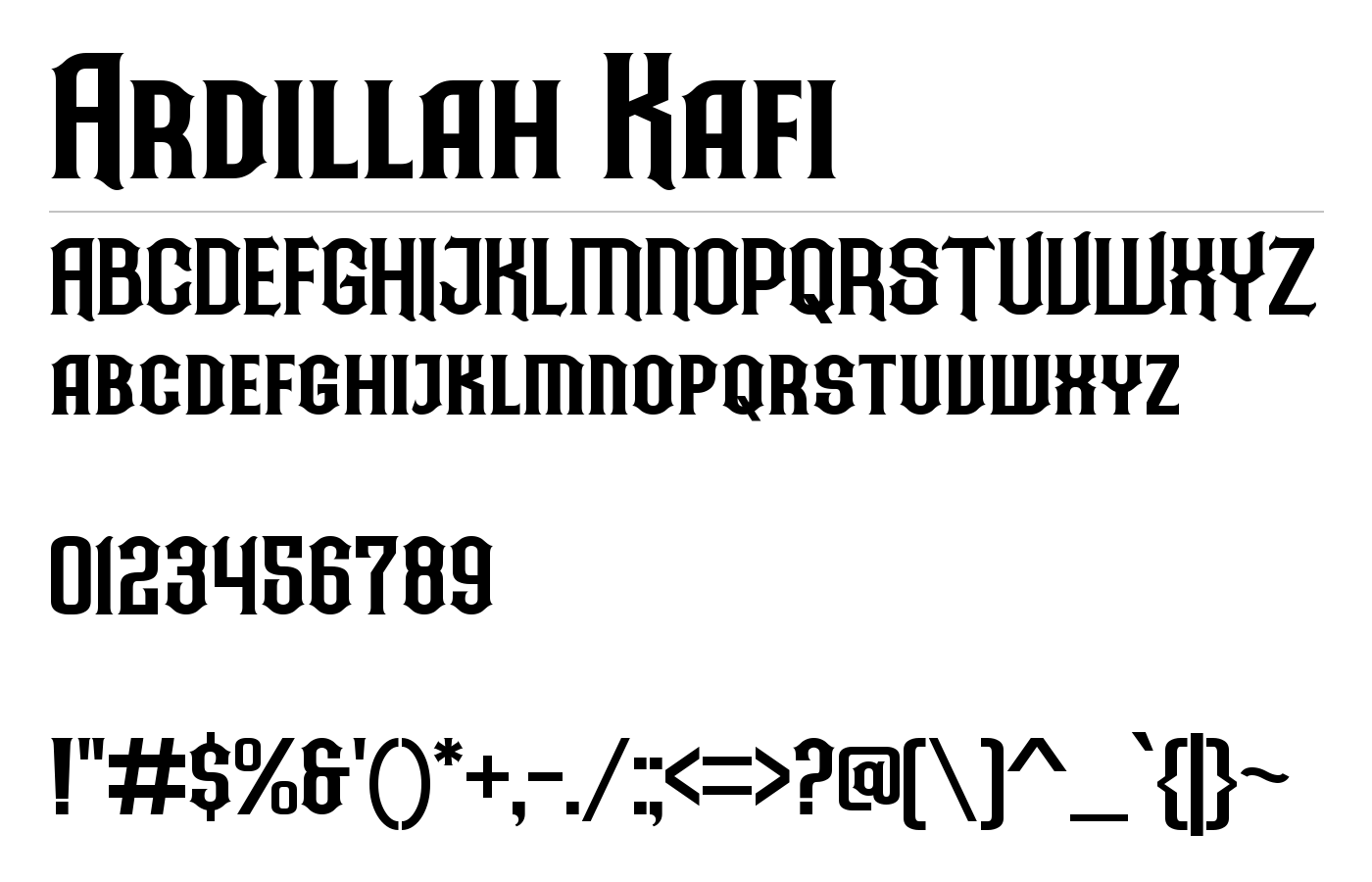
Ardillah Kafi is a bold, condensed display font with strong slab serif qualities, featuring sharp, angular edges and a high contrast between thick and thin strokes. Its distinctive gothic-inspired style lends a dramatic, vintage vibe, making it ideal for headlines, logos, and branding that seek a powerful and authoritative presence. This font works best in designs where impact and readability are key, especially in fashion, posters, and editorial projects that embrace a bold, classic aesthetic.
Ardillah Kafi Font
About Ardillah Kafi Font